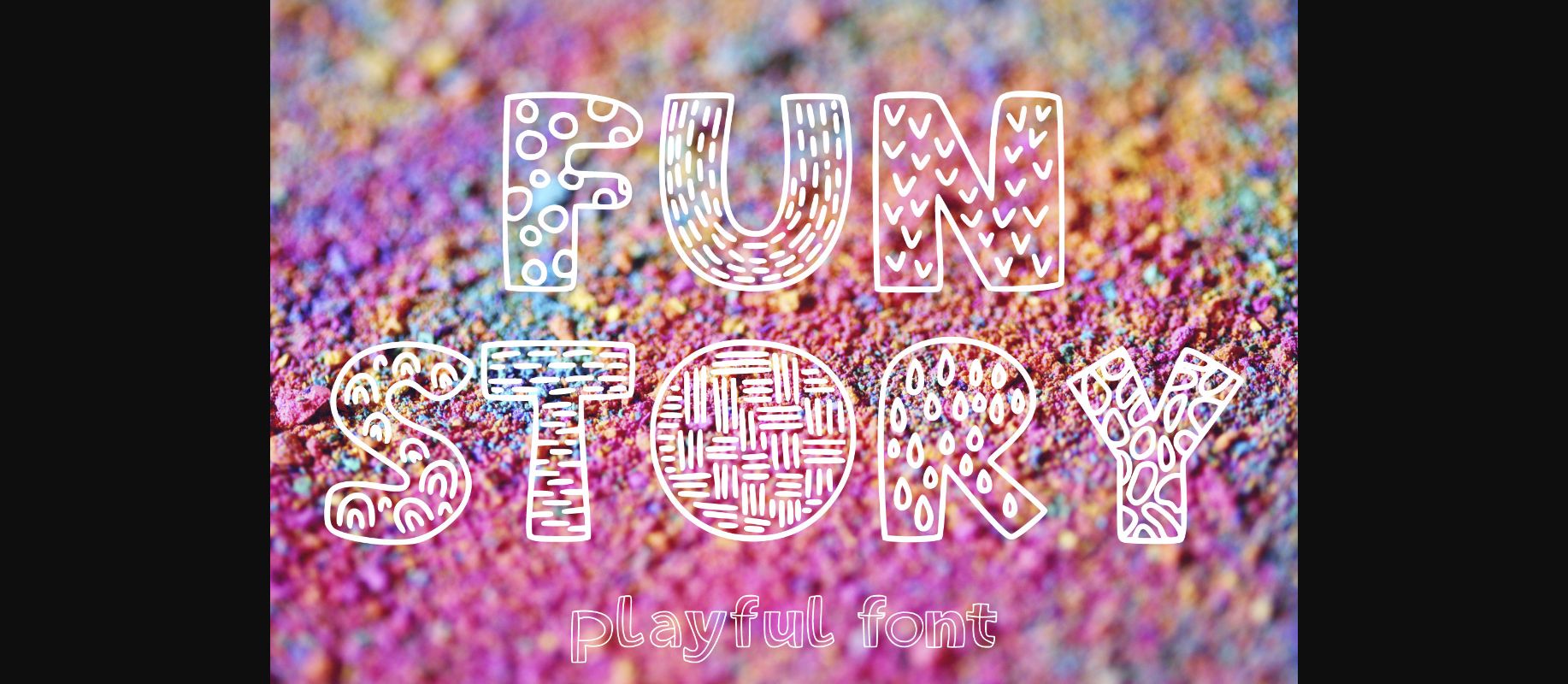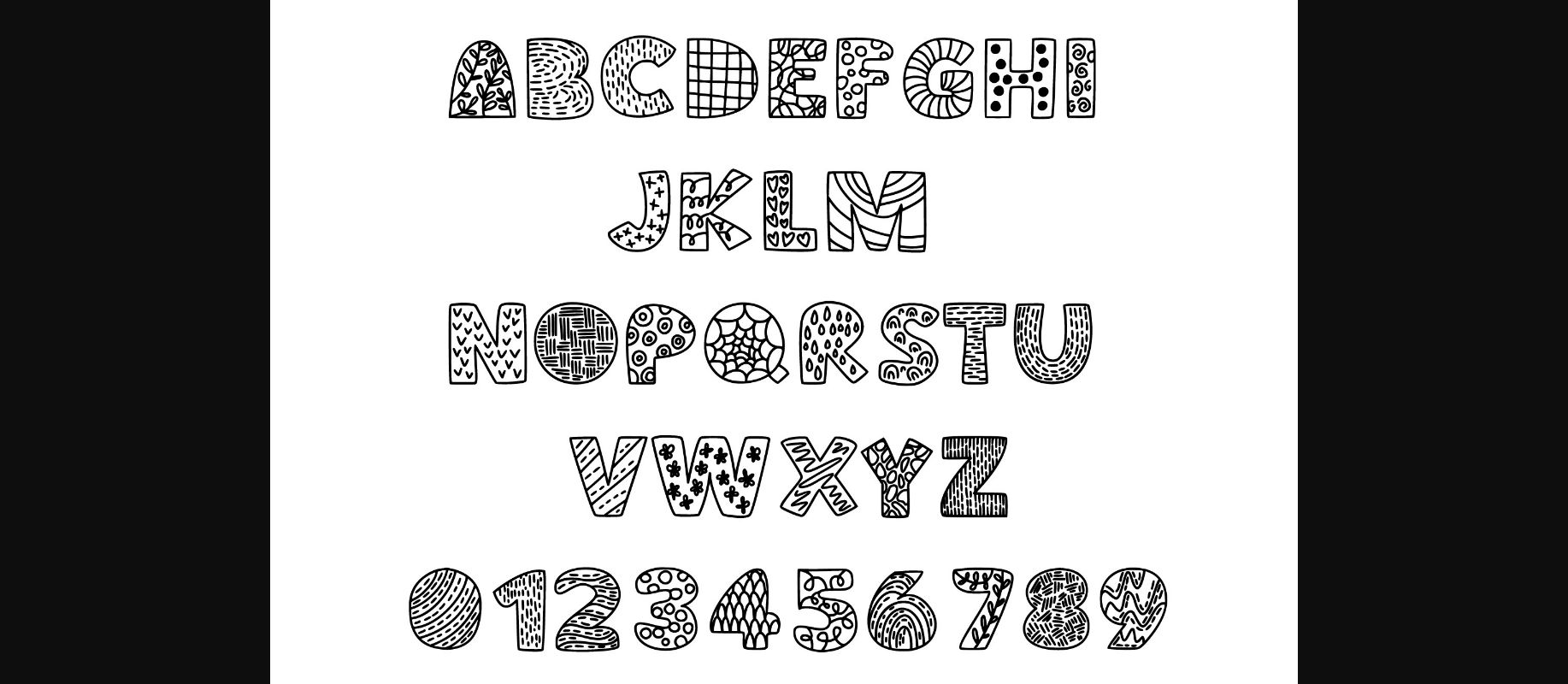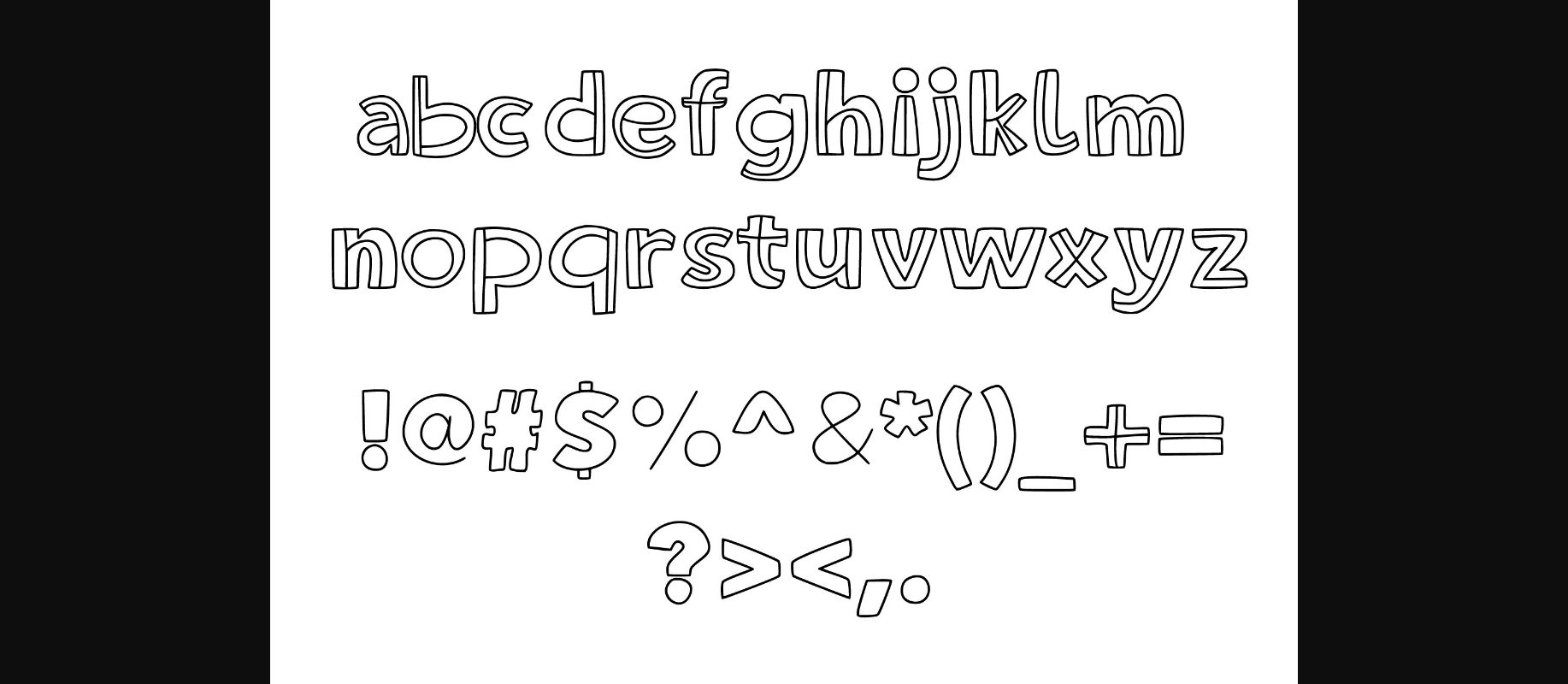
About Fun Story Font
Fun Story is a fun and cool decorative font. It works well for kids cards, t-shirts and a couple other design ideas. It can be used for education and nursery posters.